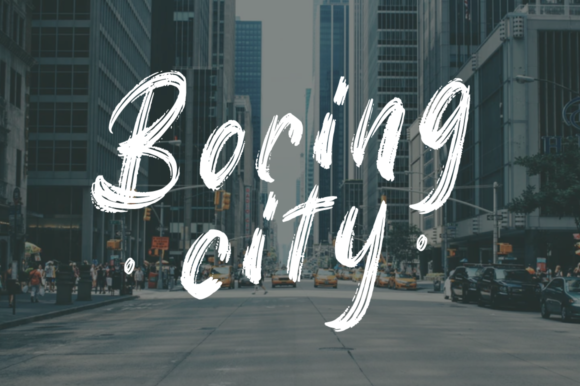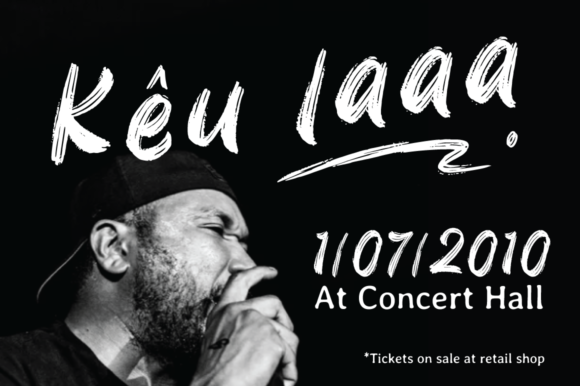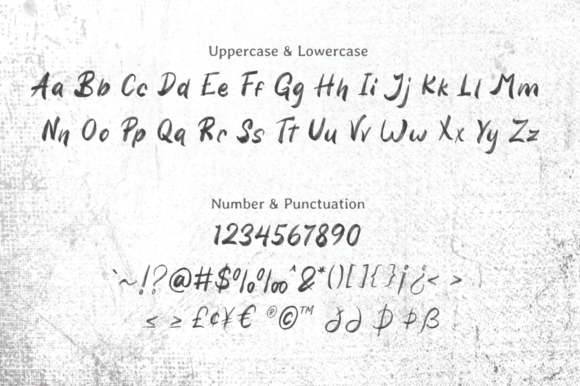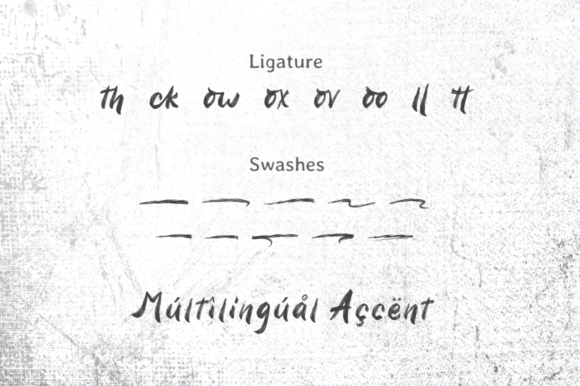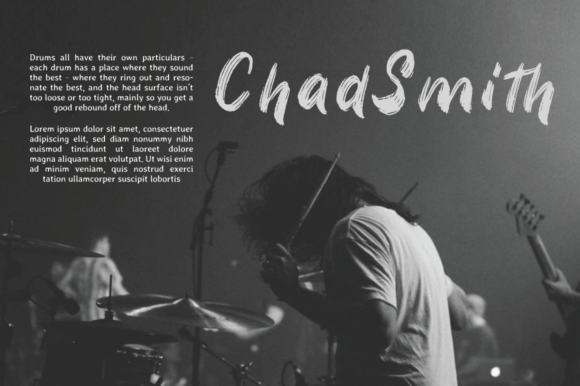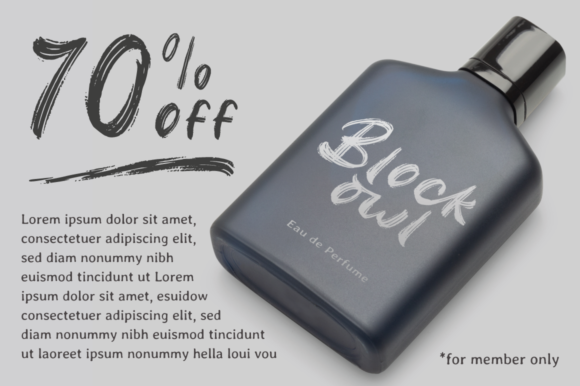
Balsoon Font: Elevate Your Designs with a Cool, Brushed, and Trendy Handwritten Style
Are you tired of using the same old fonts in your designs? Look no further than the Balsoon Font, a cool, brushed, and trendy handwritten font that’s sure to take your creative projects to the next level. With its beautiful and well-balanced characters, Balsoon Font is the perfect addition to any design, from modern and edgy to elegant and sophisticated.
What Makes Balsoon Font So Special?
Balsoon Font is a unique and versatile font that’s designed to match a wide pool of designs. Its brushed and handwritten style gives it a personal and organic feel, making it perfect for designs that require a touch of warmth and personality. Whether you’re working on a logo, a poster, a website, or any other creative project, Balsoon Font is sure to make it stand out from the crowd.
One of the key features that sets Balsoon Font apart is its beautiful and well-balanced characters. Each letter is carefully crafted to ensure that it looks great on its own and in combination with other letters. This makes it easy to use Balsoon Font in a variety of contexts, from headlines and titles to body text and captions.
How to Use Balsoon Font in Your Designs
Here are a few tips for using Balsoon Font in your designs:
- Use Balsoon Font as a headline or title font to add a touch of personality and style to your design.
- Pair Balsoon Font with a sans-serif font for a modern and edgy look.
- Use Balsoon Font in combination with images and graphics to add a touch of warmth and personality to your design.
Benefits of Using Balsoon Font
There are many benefits to using Balsoon Font in your designs. Here are a few:
- Unique and distinctive style: Balsoon Font has a unique and distinctive style that’s sure to make your designs stand out from the crowd.
- Versatility: Balsoon Font is a versatile font that can be used in a wide range of designs, from modern and edgy to elegant and sophisticated.
- High-quality design: Balsoon Font is designed to high standards, with beautiful and well-balanced characters that look great in any context.
Who Can Benefit from Using Balsoon Font?
Balsoon Font is perfect for designers, crafters, and anyone who wants to add a touch of personality and style to their designs. Here are a few examples of people who can benefit from using Balsoon Font:
- Graphic designers: Balsoon Font is perfect for graphic designers who want to add a touch of personality and style to their designs.
- Crafters: Balsoon Font is great for crafters who want to add a personal touch to their handmade projects.
- Small business owners: Balsoon Font is perfect for small business owners who want to create a unique and distinctive brand identity.
- Bloggers and writers: Balsoon Font is great for bloggers and writers who want to add a touch of personality and style to their content.
In conclusion, Balsoon Font is a cool, brushed, and trendy handwritten font that’s perfect for designers, crafters, and anyone who wants to add a touch of personality and style to their designs. With its beautiful and well-balanced characters, Balsoon Font is sure to make your designs stand out from the crowd. So why wait? Download Balsoon Font today and start elevating your designs to the next level!